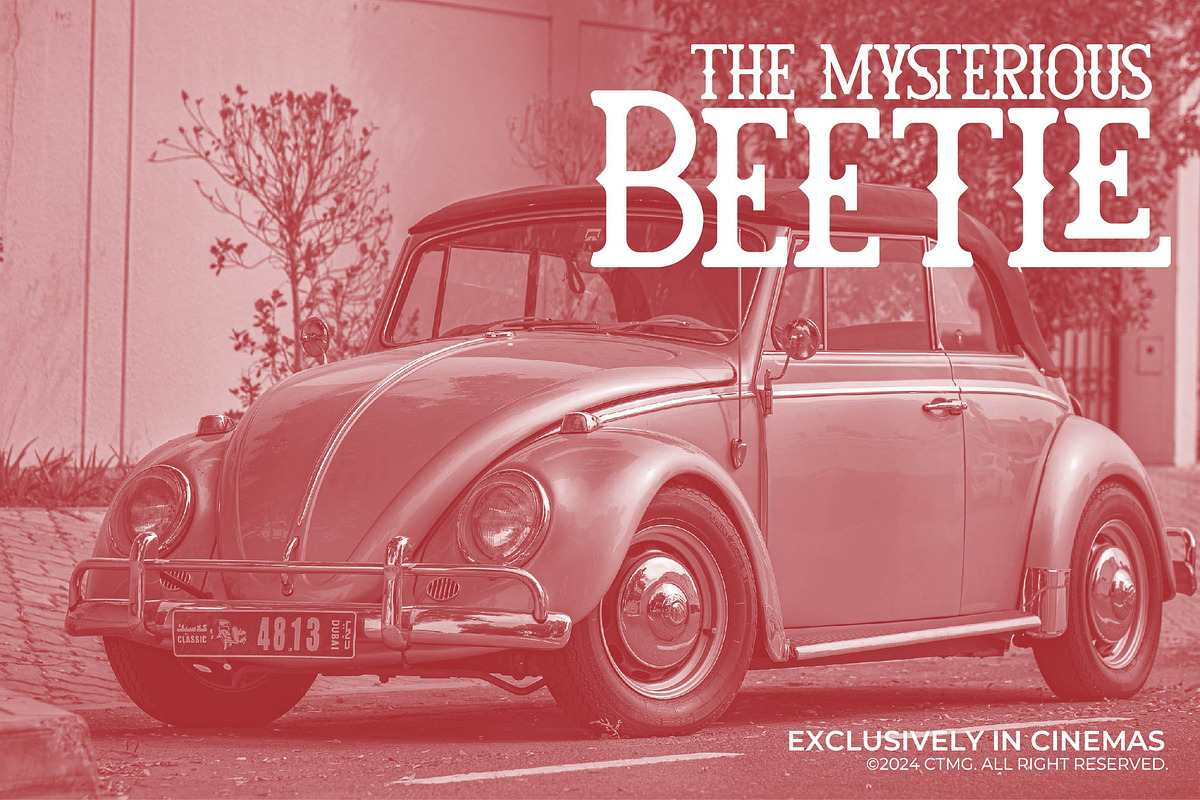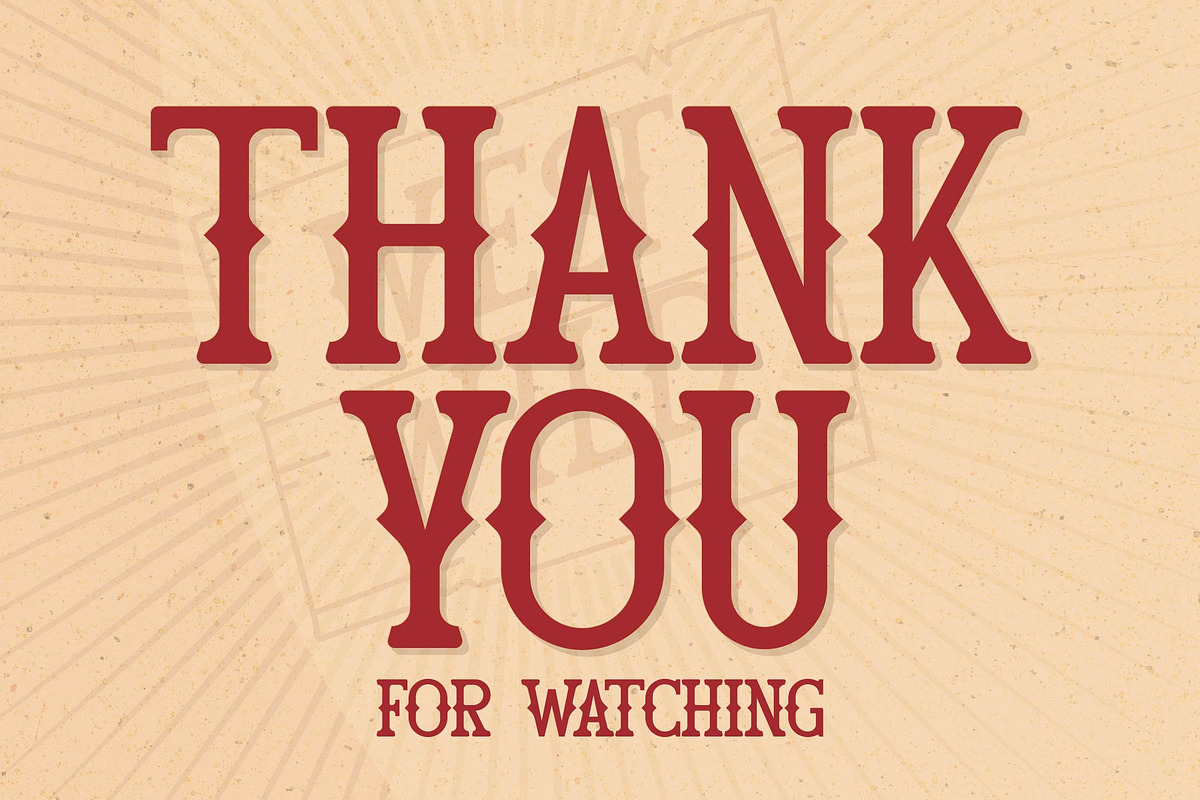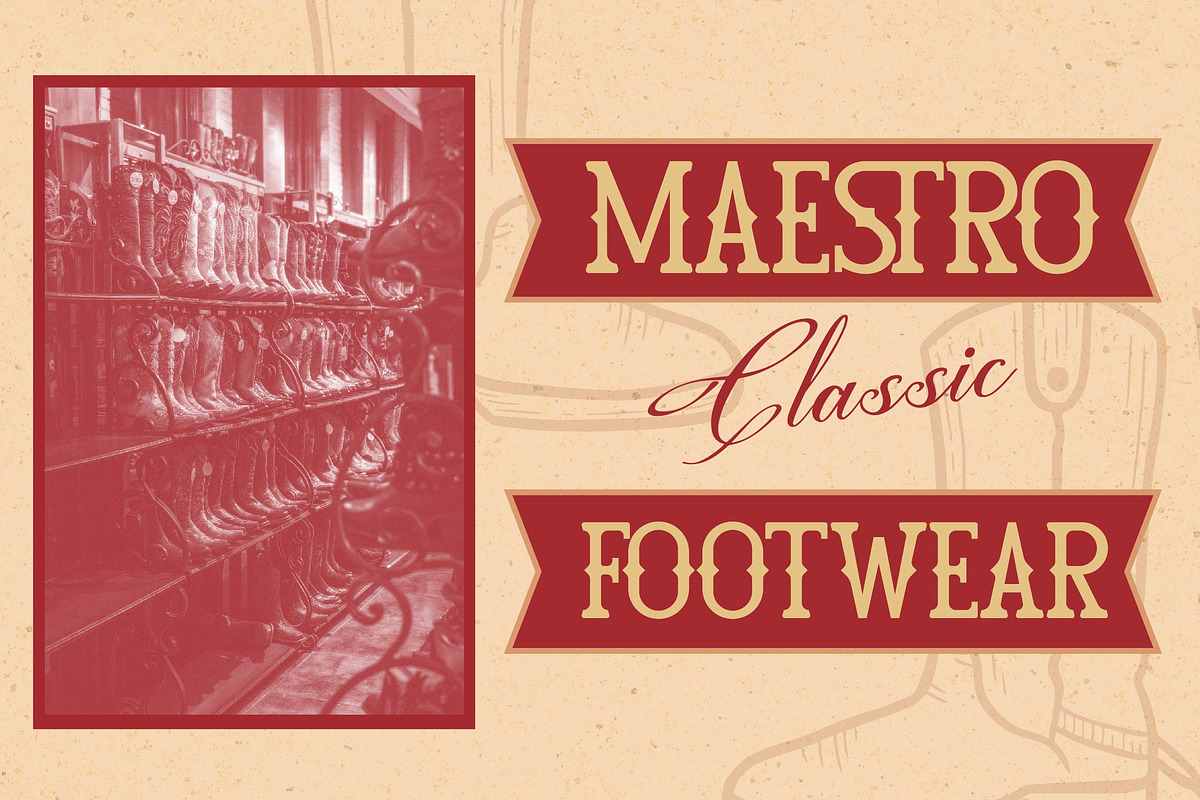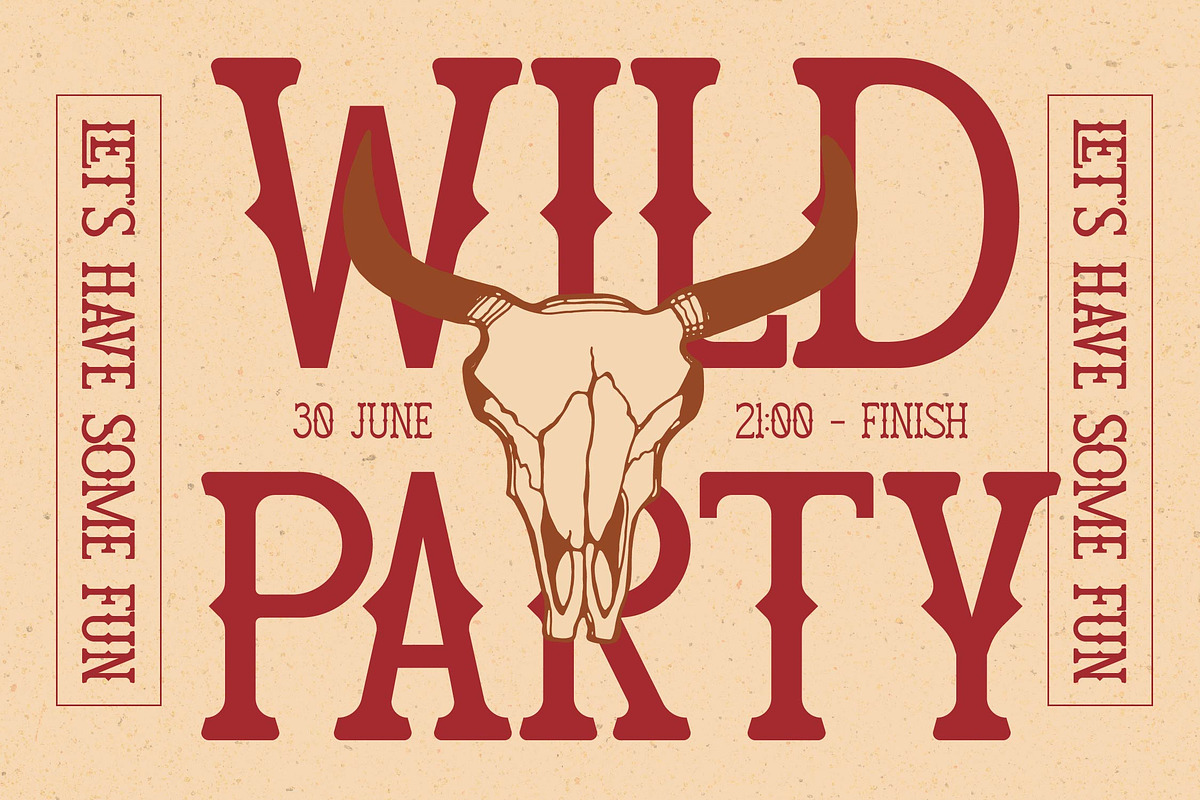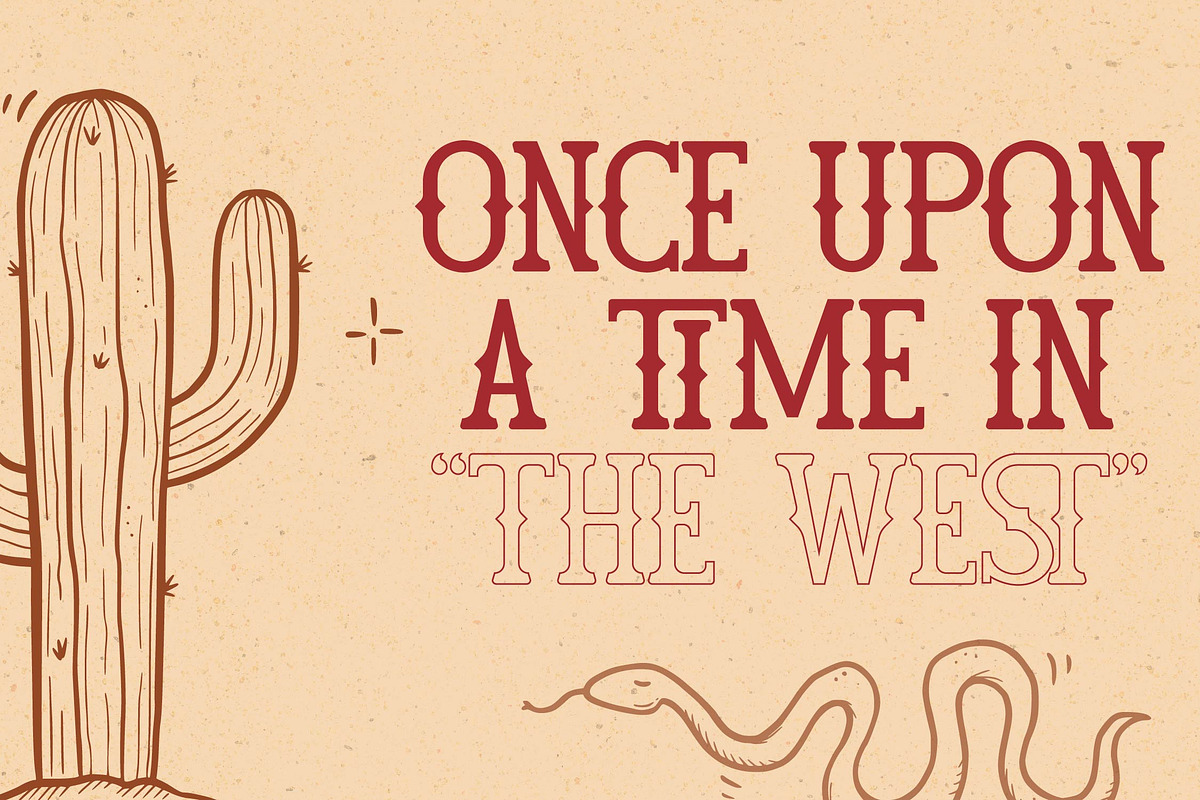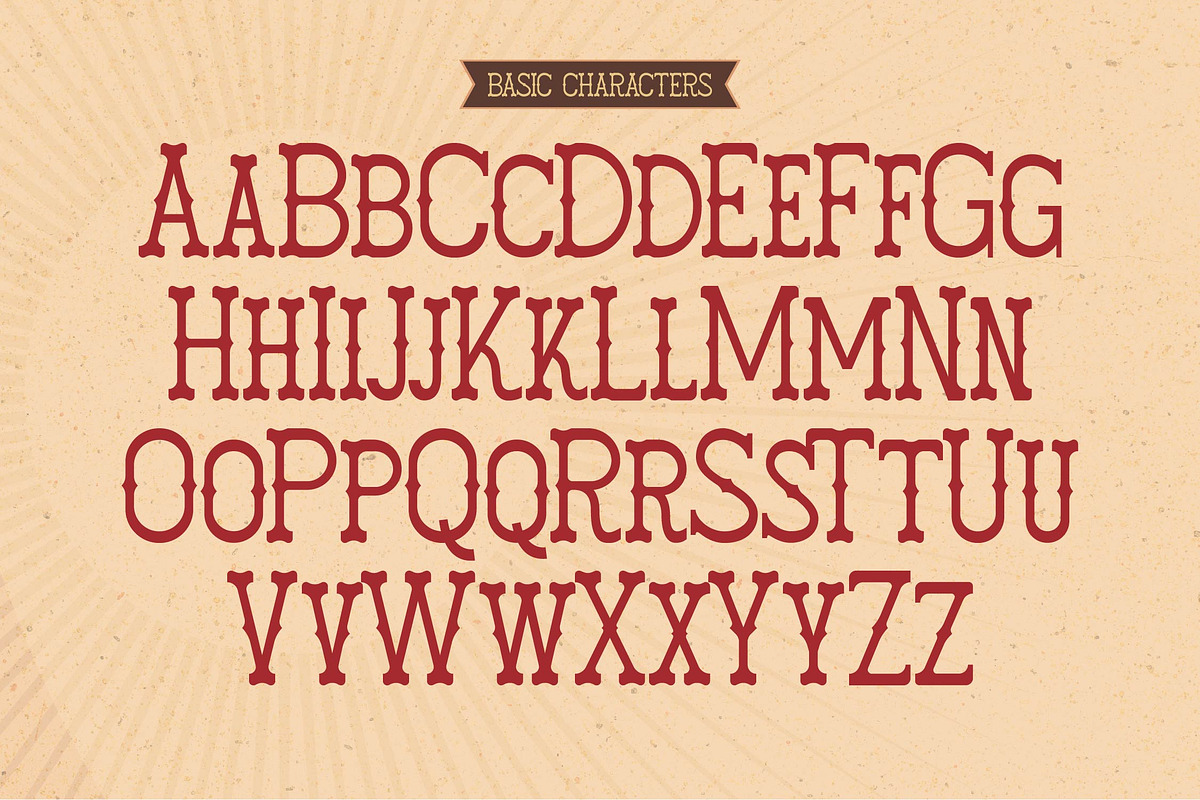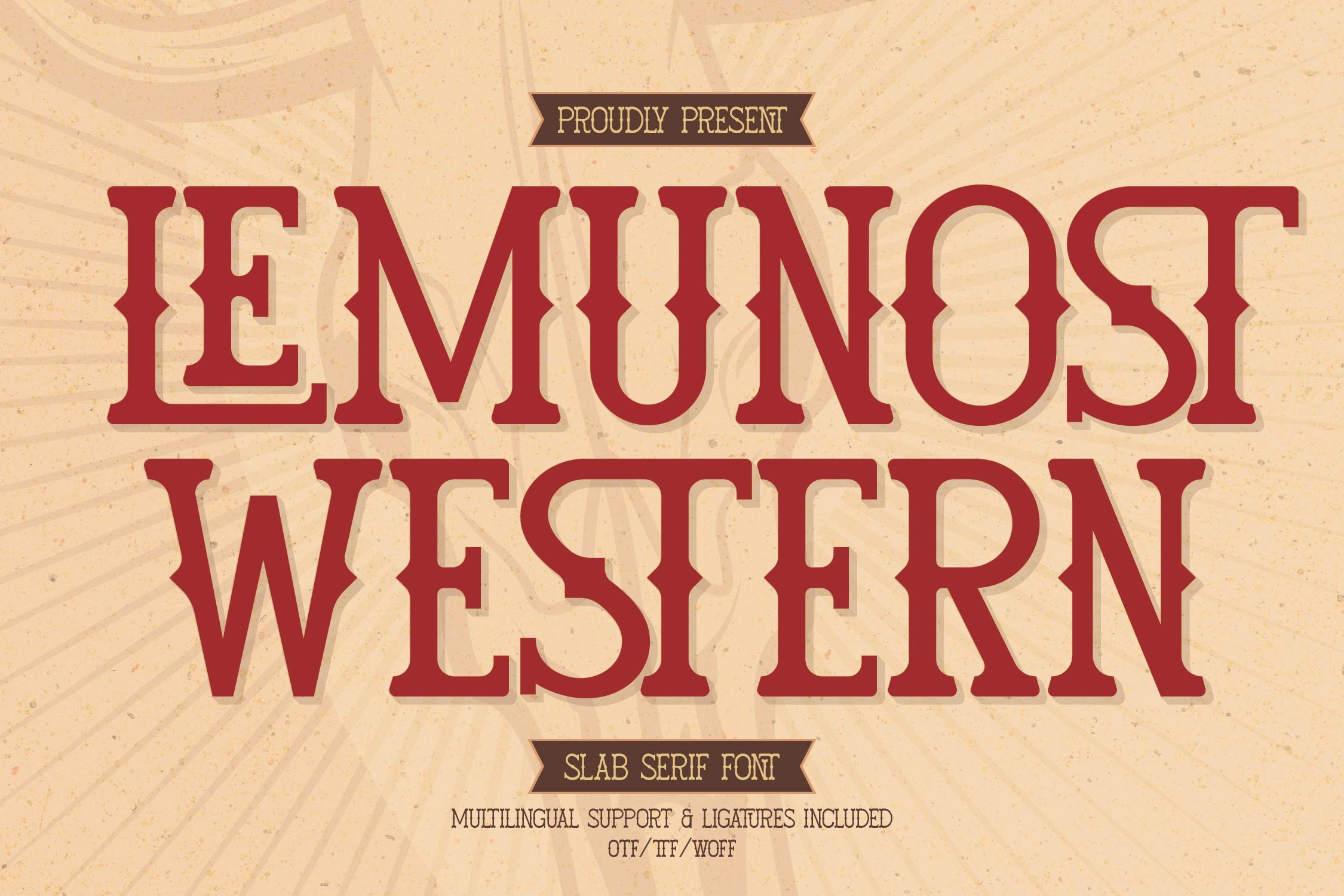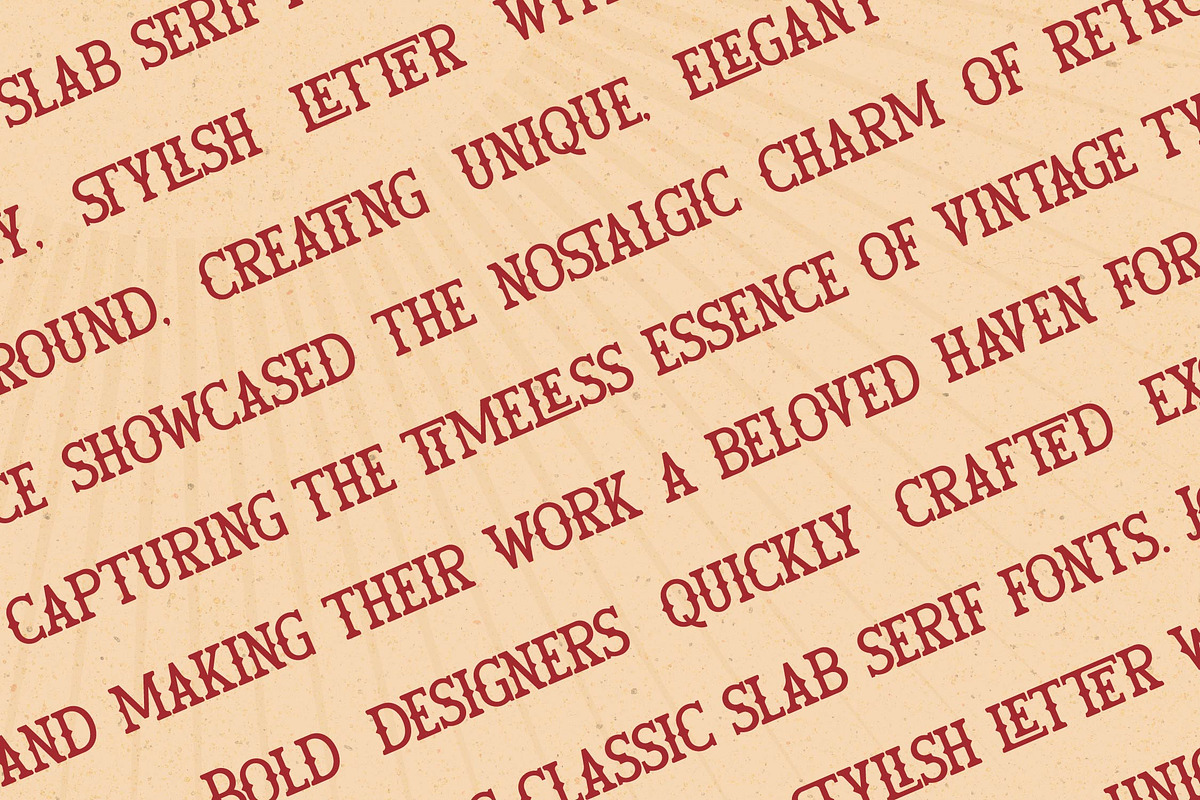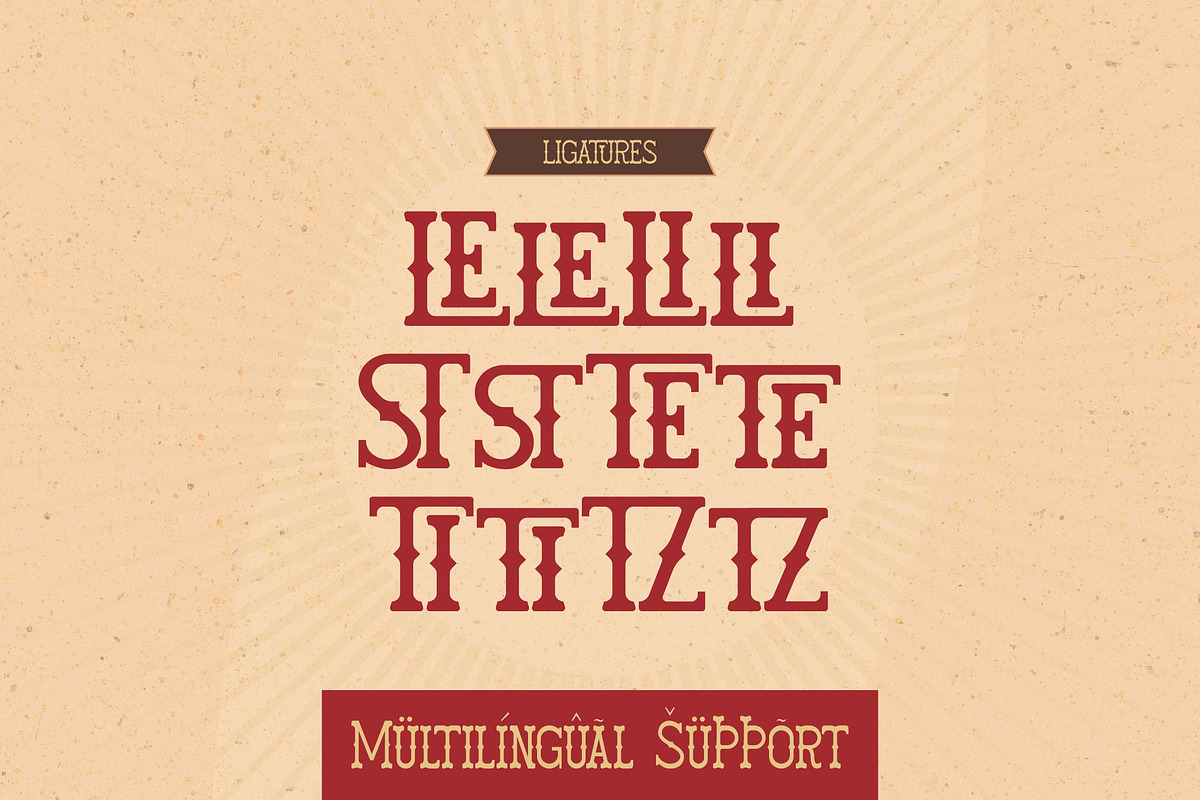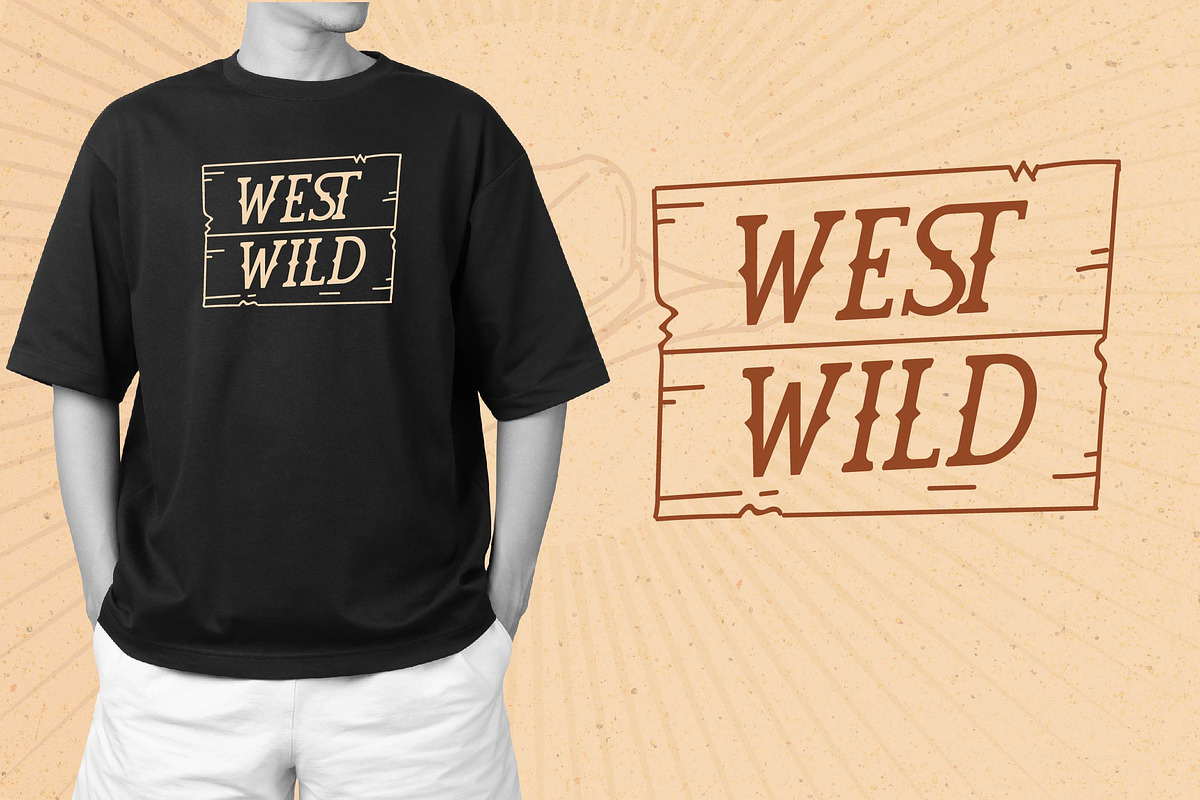
Lemunost Western | Slab Serif Font
Lemunost Western | Slab Serif Font, from Denustudios, suitable for any projects such as: logos, branding projects, homeware designs, product packaging, mugs, quotes, posters, shopping bags, t-shirts, book covers, name card, invitation cards, greeting cards, label, photography, watermark, special events, and all your other lovely projects that need a Slab Serif Font taste.